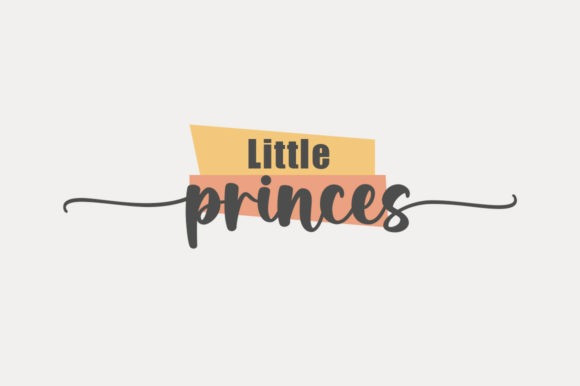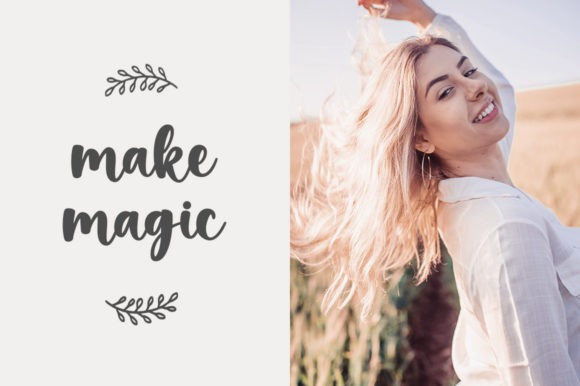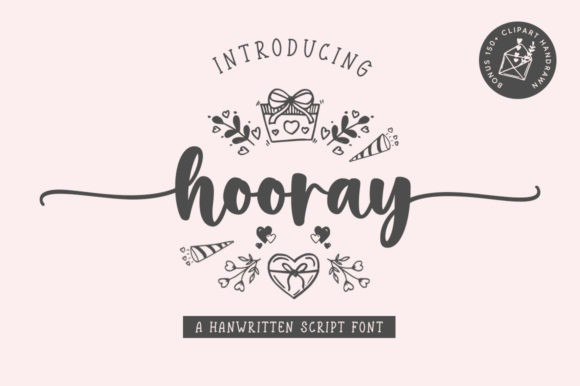
Hooray Font
Hooray Script Font is a lovely script font featuring charming, playful characters that seem to dance along the baseline. Add it to your most creative ideas and notice how it makes them come alive!